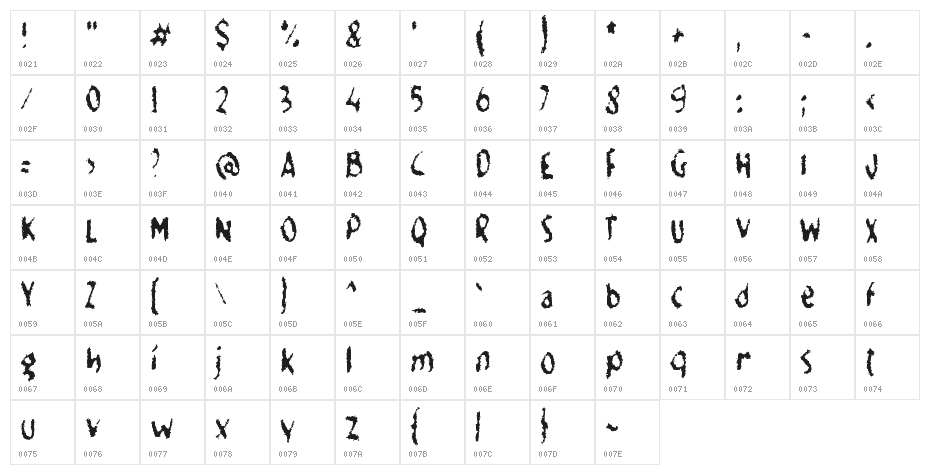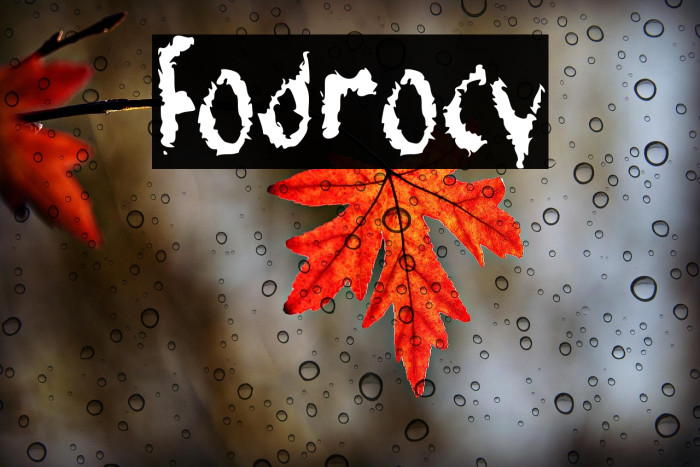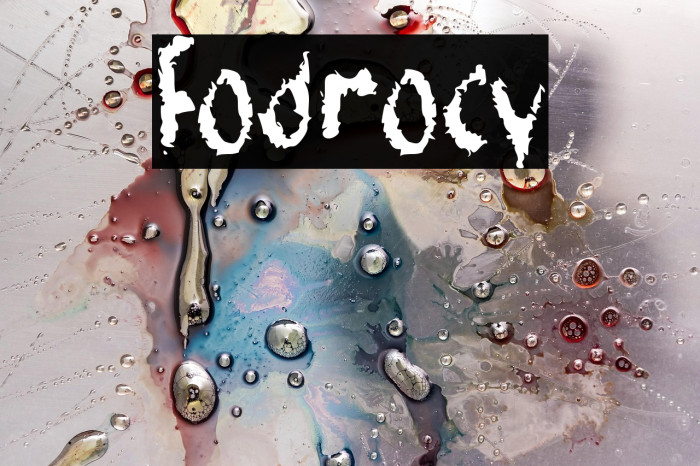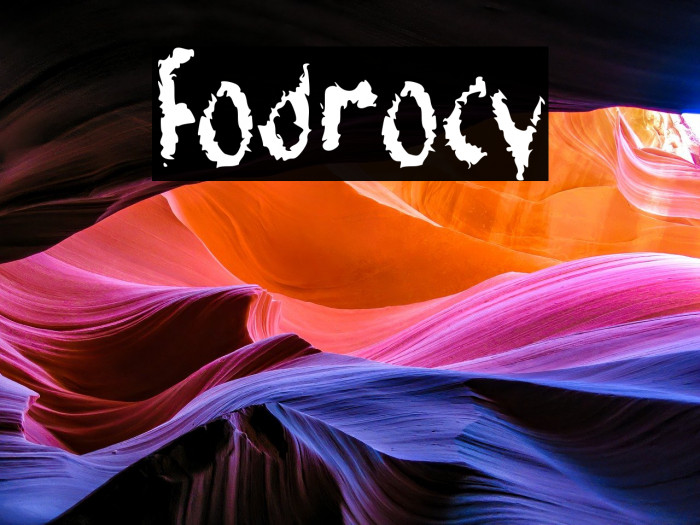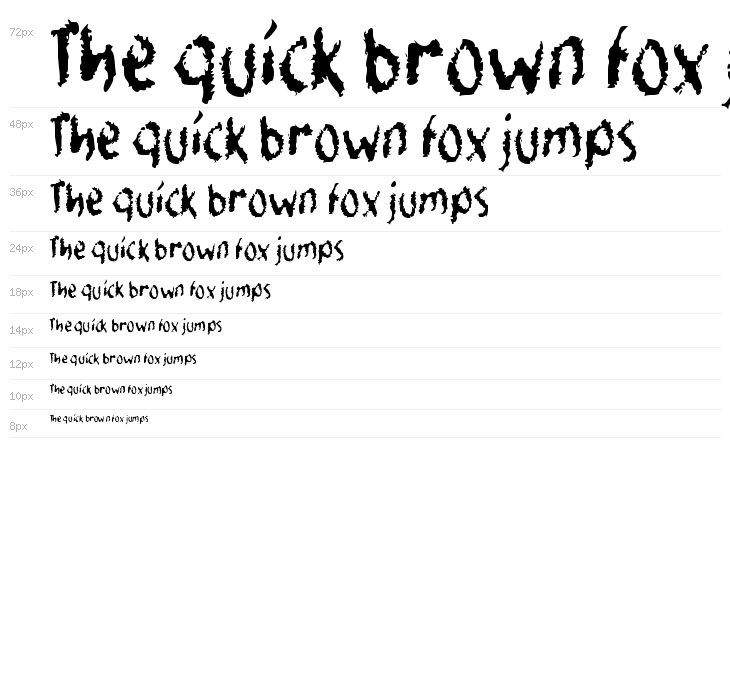
Fodrocy Font
Fodrocy Description
This font features a highly decorative and textured style, reminiscent of organic or natural forms. The characters appear as if they are crafted from torn paper or foliage, giving them a rugged and dynamic appearance. Each letter is unique, with irregular edges and varying thicknesses, creating a sense of movement and unpredictability. The font maintains legibility despite its unconventional design, making it suitable for creative and artistic projects. The numbers and special characters follow the same aesthetic, ensuring consistency throughout the typeface.
| Proposed Projects | Ideal for Halloween-themed designs, artistic posters, album covers, or any project requiring a bold, nature-inspired aesthetic. |